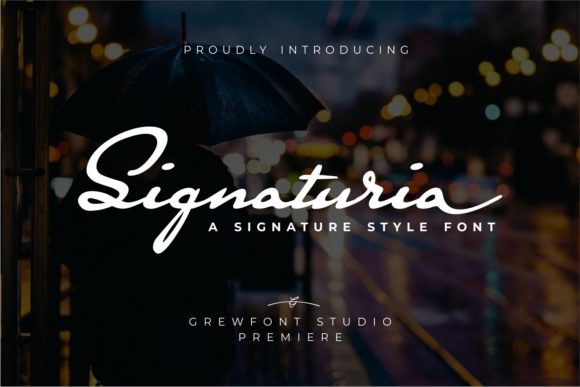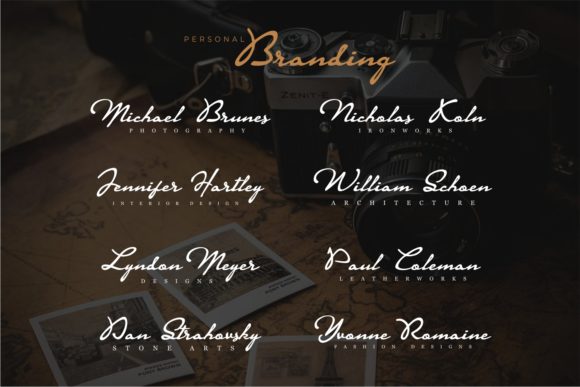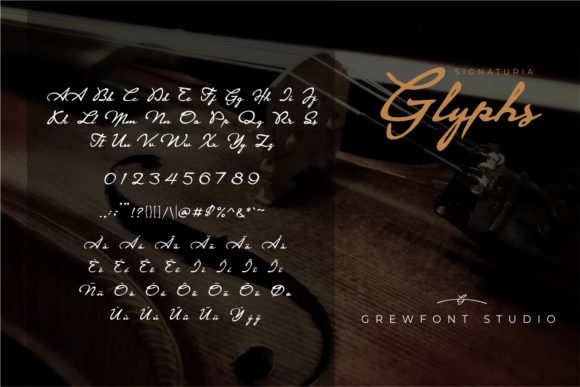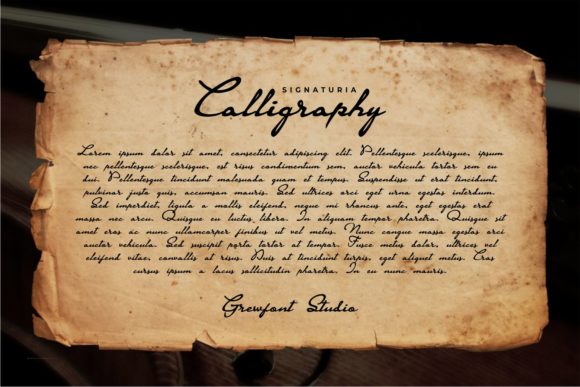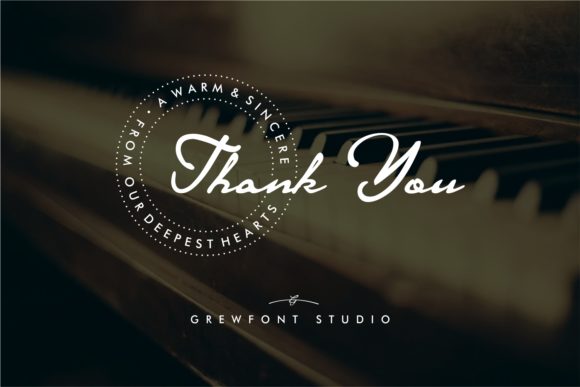
Signaturia Font
About Signaturia Font
Signaturia is a beautiful and classy script font. This stunning font is a stylish homage to classic calligraphy. It features a varying baseline, smooth lines, gorgeous glyphs and stunning alternates. Whether you’re looking for fonts for Instagram or calligraphy scripts for DIY projects, Signaturia will turn any creative idea into a true piece of art!